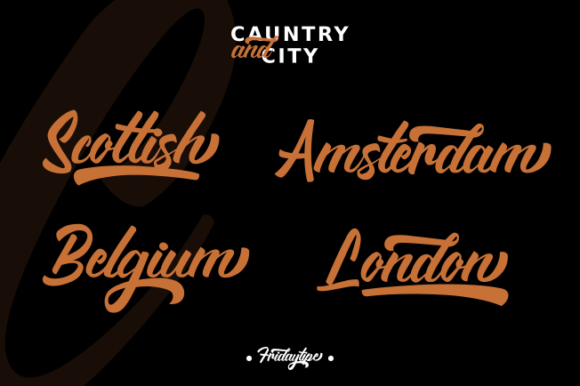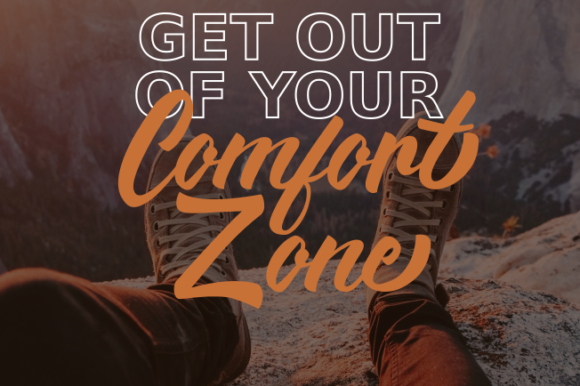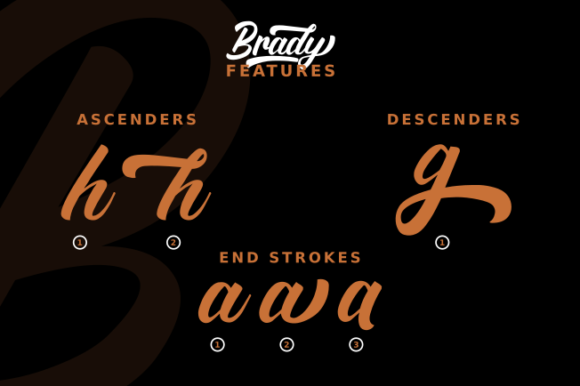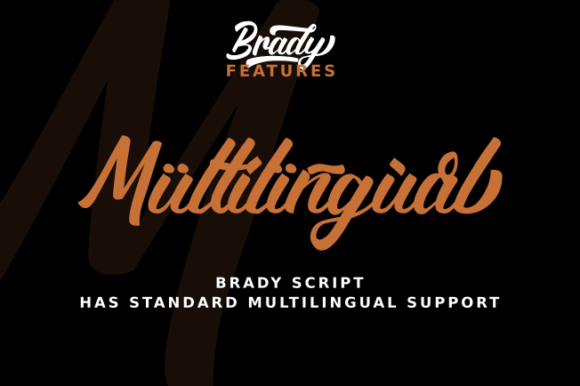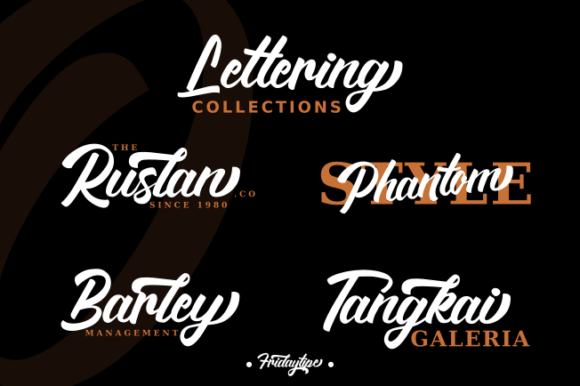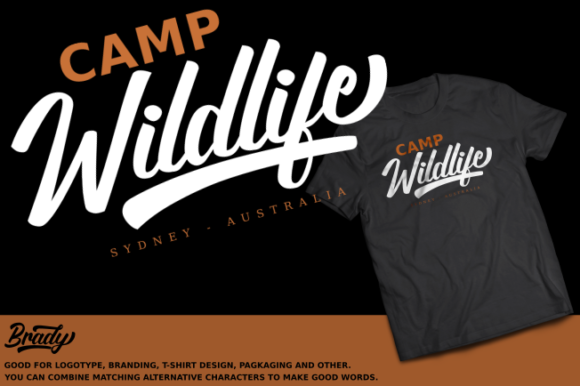
The Brady Font: A Script Font with Drama and Flair
I still remember the design project that led me to discover the Brady font. I was working on a branding project for a luxury event planner, and I needed a font that would convey elegance, sophistication, and a touch of drama. After hours of scrolling through font libraries and trying out different combinations, I stumbled upon Brady – a script font with a clear style and dramatic movement that instantly captured the essence of the brand.
An Honest Review of Brady Font
What I Love About Brady ✨
• Unique and attractive design that stands out from more traditional script fonts ✅
• Clear style and dramatic movement that add a touch of elegance to any project ✨
• Versatile and suitable for a wide range of projects, from luxury branding to wedding invitations 📨
• Excellent for headlines, titles, and short paragraphs of text 📄
• Brady font may not be the best choice for body text or long paragraphs, as it can be a bit ornate and difficult to read ⚠️
• Some users may find the font’s dramatic movement and flourishes overwhelming or distracting 😕
3. Experiment with OpenType features, such as glyphs and stylistic alternates, to add more variety to your text 📝
The Story Behind Brady Font
The Brady font was designed by a team of typographers who wanted to create a unique and attractive script font that would add a touch of drama and elegance to any project. Inspired by classic calligraphy and modern digital design, Brady font is the result of a careful balance between style and legibility 📝
What is the Brady font best used for? The Brady font is best used for headlines, titles, and short paragraphs of text, particularly in luxury branding, wedding invitations, and high-end marketing materials.
Is Brady font suitable for body text? No, Brady font may not be the best choice for body text or long paragraphs, as it can be a bit ornate and difficult to read.
Is Brady font available in different weights and styles? Yes, Brady font comes in a range of weights and styles, including bold, italic, and stylistic alternates.